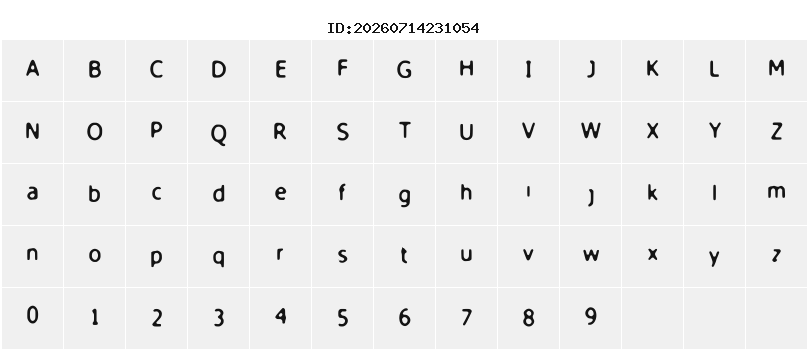
Youm Preview
About Youm.ttf
Youm.ttf is a modern, elegant sans-serif font designed for ultimate readability and visual harmony. Perfect for branding, headlines, web design, and print materials.